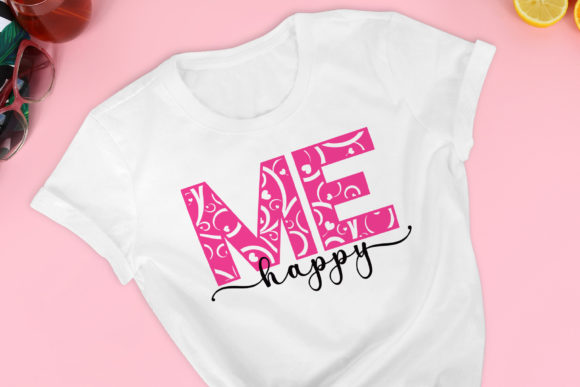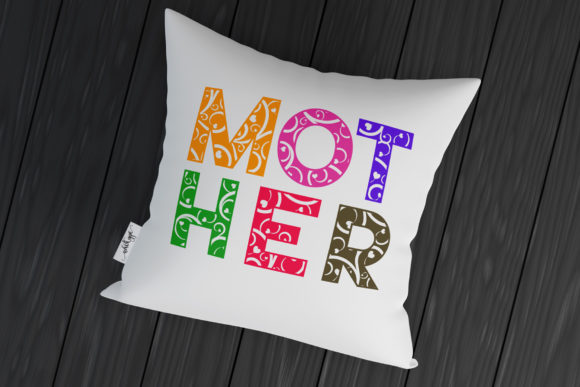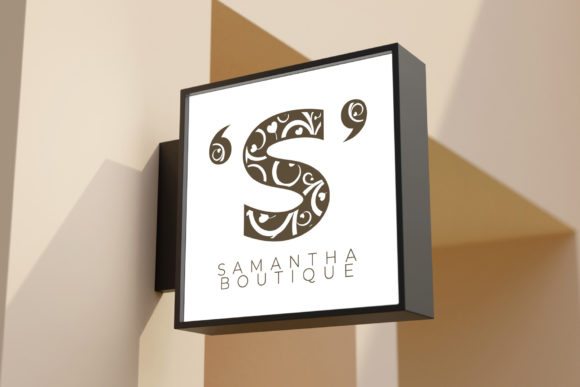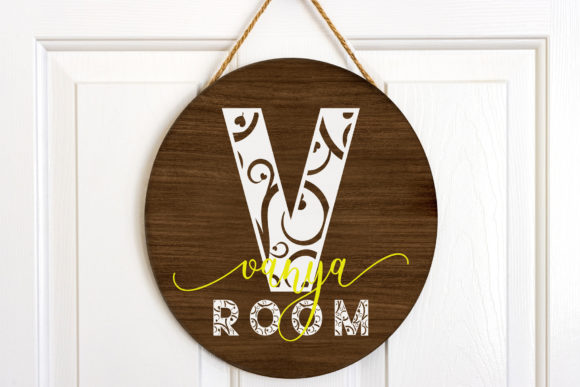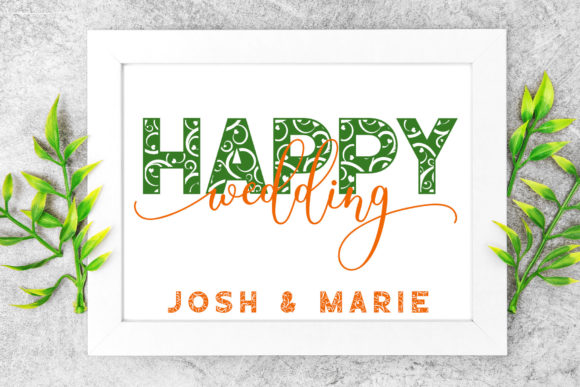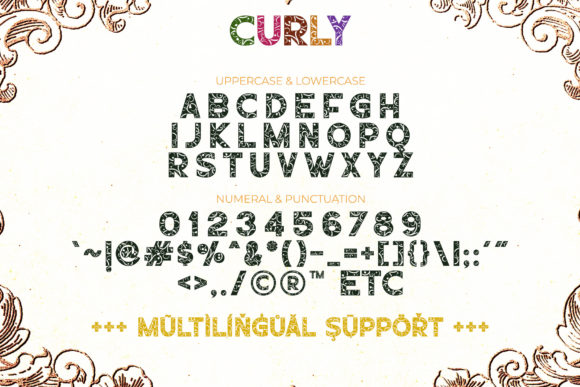
Introducing Curly Font: The Ultimate Decorative Font for Designers and Crafters
Are you tired of using the same old fonts for your designs and crafts? Look no further! Curly Font is here to add a touch of fun and coolness to your projects. This decorative font is perfect for anyone who wants to make their designs stand out, whether you’re a professional designer or a crafty DIY enthusiast.
What is Curly Font?
Curly Font is a unique and playful decorative font that’s designed to add a personal touch to your projects. Its curly and swirly design makes it perfect for a variety of uses, from crafting and digital designing to presentations and greeting cards making.
Features of Curly Font
- Unique Design: Curly Font has a one-of-a-kind design that’s sure to make your projects stand out.
- Versatile: This font can be used for a variety of projects, including crafting, digital designing, presentations, and greeting cards making.
- Fun and Playful: This font adds a touch of fun and playfulness to any project, making it perfect for designs that require a personal touch.
Uses of Curly Font
Curly Font is perfect for a variety of projects, including:
- Crafting: Use Curly Font to add a personal touch to your scrapbooking, card making, and other craft projects.
- Digital Designing: This font is perfect for digital designers who want to add a touch of fun and playfulness to their designs.
- Presentations: Use Curly Font to make your presentations more engaging and fun.
- Greeting Cards Making: This font is perfect for creating unique and personalized greeting cards.
Benefits of Using Curly Font
Using Curly Font has several benefits, including:
- Increased Creativity: This font can help stimulate your creativity and add a new level of fun to your designs.
- Personal Touch: Curly Font adds a personal touch to your projects, making them more unique and special.
- Professional Look: Curly Font can help give your projects a professional look, even if you’re a beginner.
Tips for Using Curly Font
Here are some tips for using Curly Font:
- Use it Sparingly: Use Curly Font sparingly to add a touch of fun and playfulness to your designs.
- Pair it with Other Fonts: Pair Curly Font with other fonts to create a unique and interesting design.
- Have Fun: Most importantly, have fun with Curly Font! This font is designed to add a touch of fun and playfulness to your designs.
Curly Font is a cool and fun decorative font that’s perfect for designers and crafters. Its unique design, versatility, and ease of use make it a must-have for anyone who wants to add a personal touch to their projects. Whether you’re using it for crafting, digital designing, presentations, or greeting cards making, Curly Font is sure to make your designs stand out.